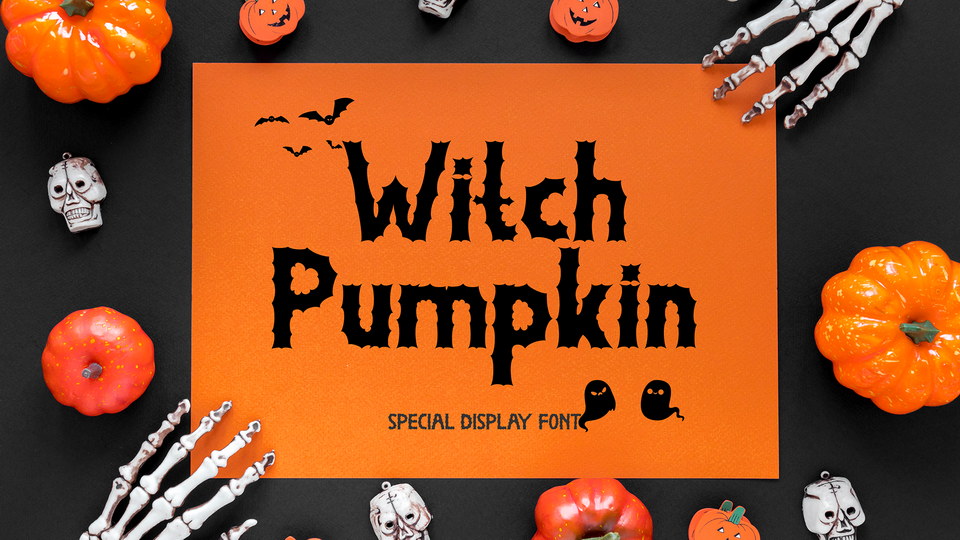
Feb 7, 2025Script & HandwrittenWitch Pumpkin Fon Witch Pumpkin is a cool, bold and spooky display font. It works for a variety of designs, but particularly for those related to Halloween designs or October parties. Font DetailsDesigned by: Yoga LetterWebsiteLicense: Free for personal use Download Witch Pumpkin FonFile size: 99.82 KBCreated: February 16, 2025Updated: February 16, 2025 Download Explore similar fonts Rune Witch Font Dark Midnight Font Get Schwifty (Rick and Morty) Font Brabe Font Tink Real Font Royal Kingsman Font # Creepy# Funny# Halloween# Spooky More fonts by Yoga LetterSanantha FontBeautiful Mother Monogram FontChristmas Smile FontThe Zander FontGhost Battle FontDevil Story FontChristmas Soldier FontAlletha Font